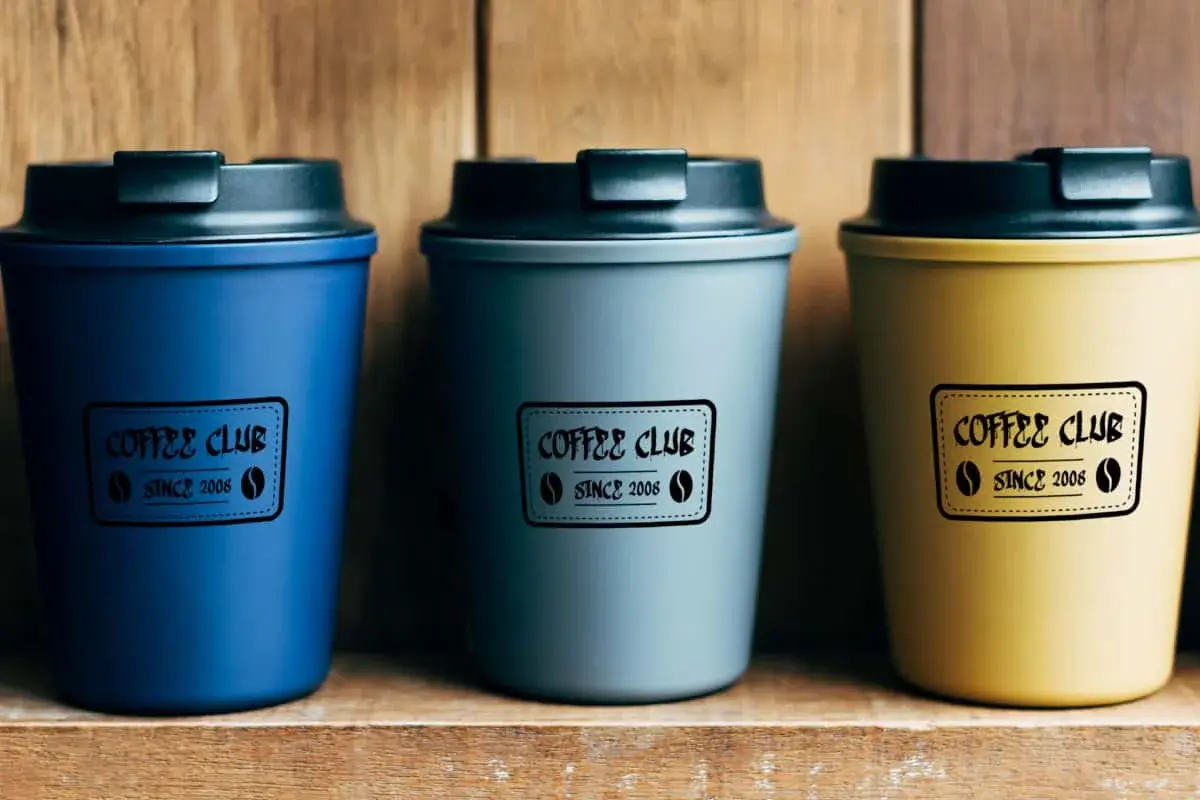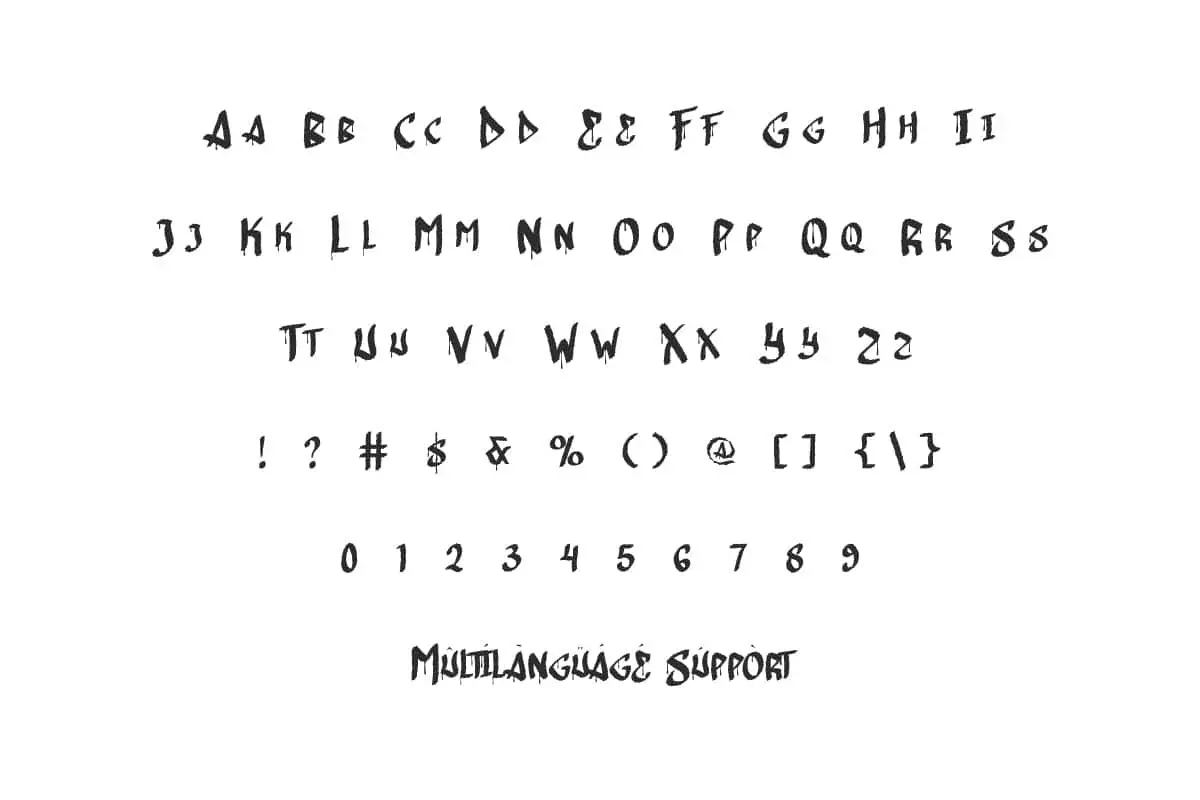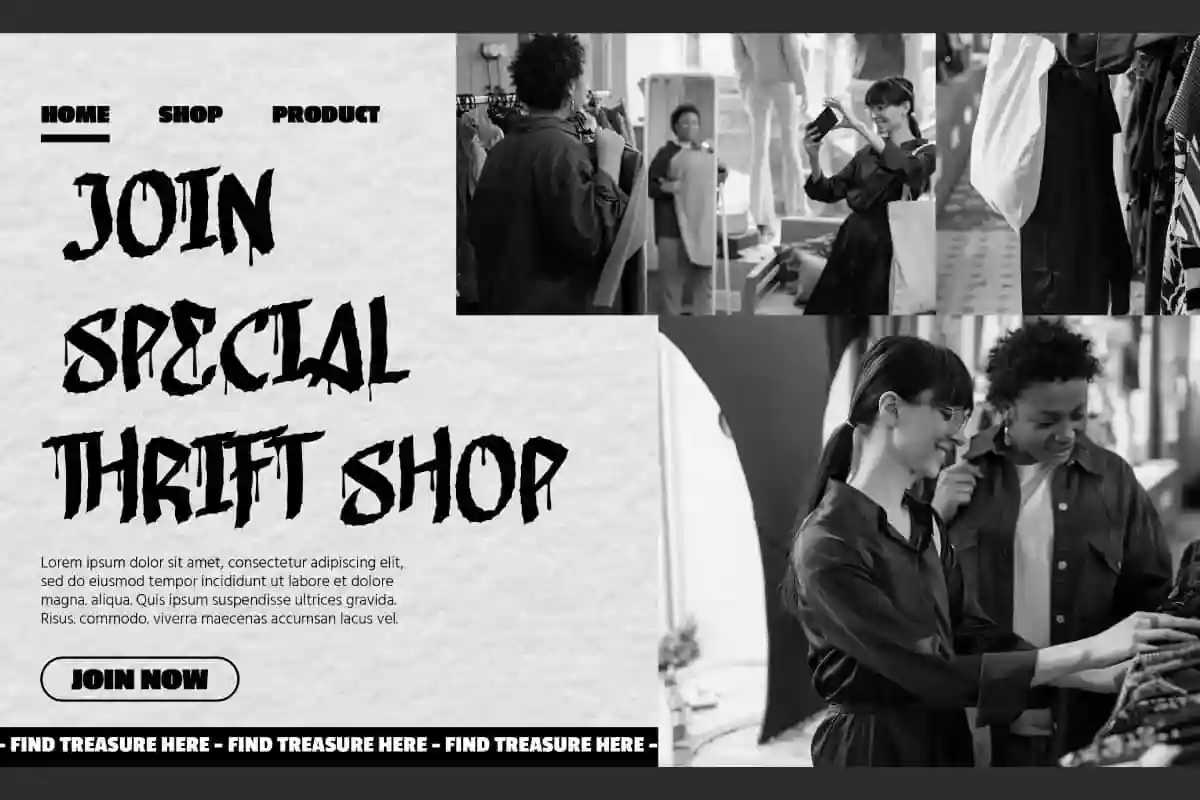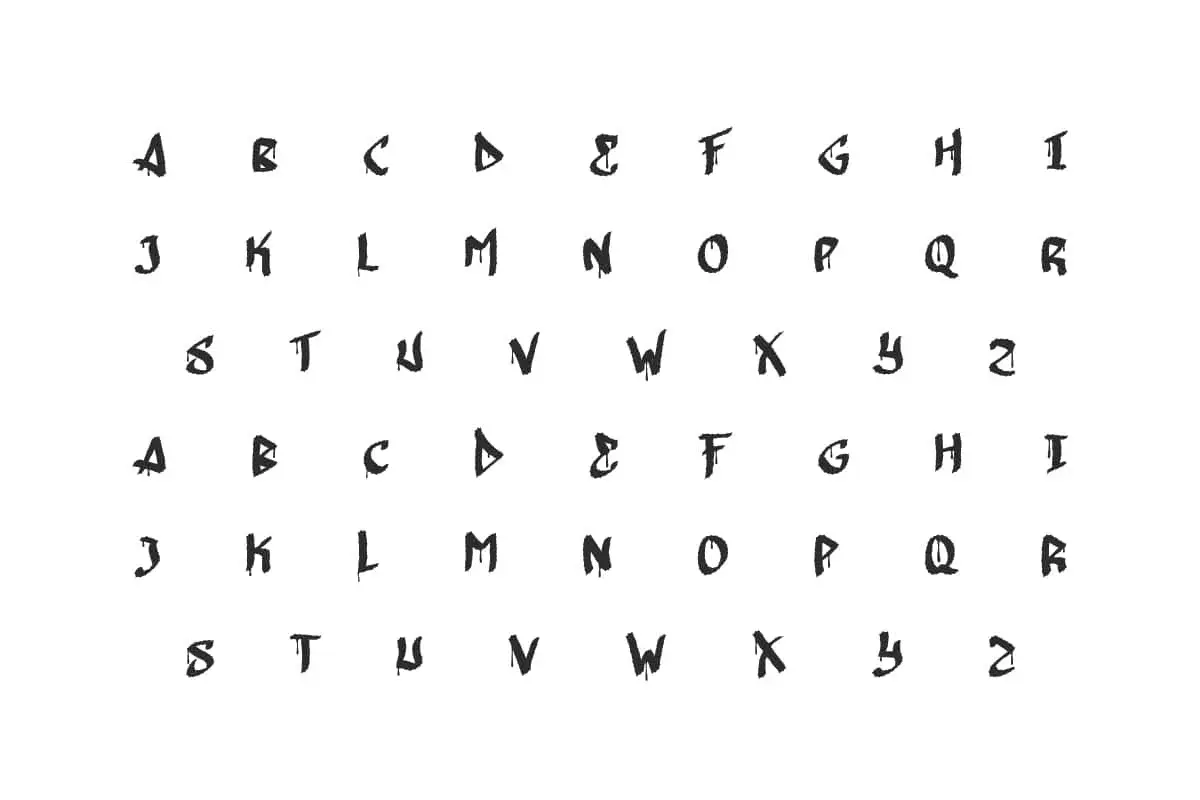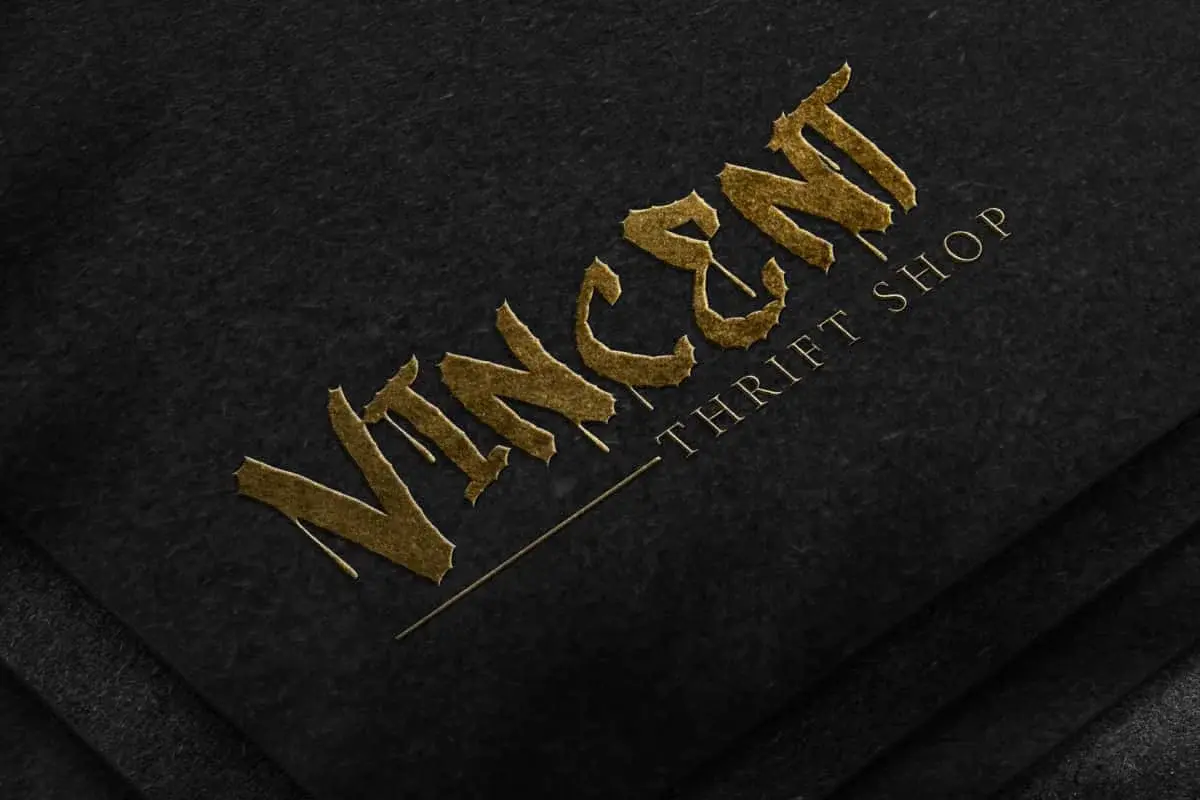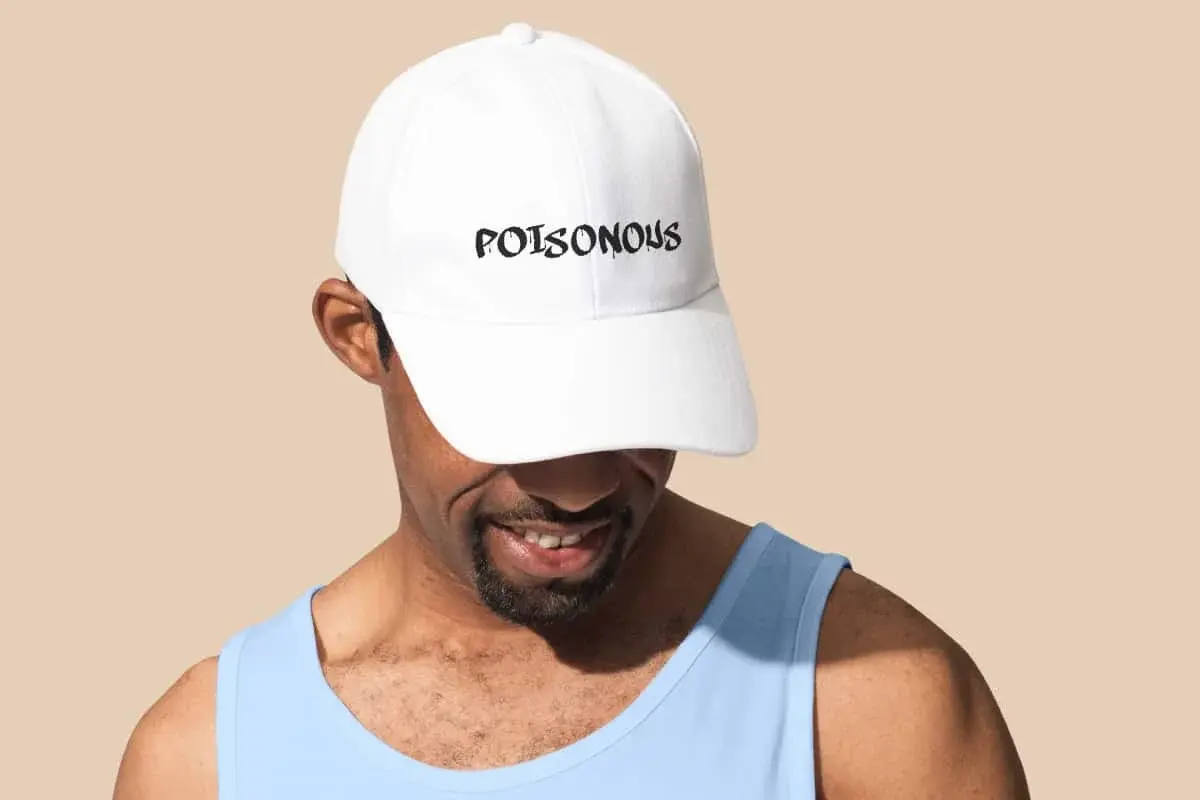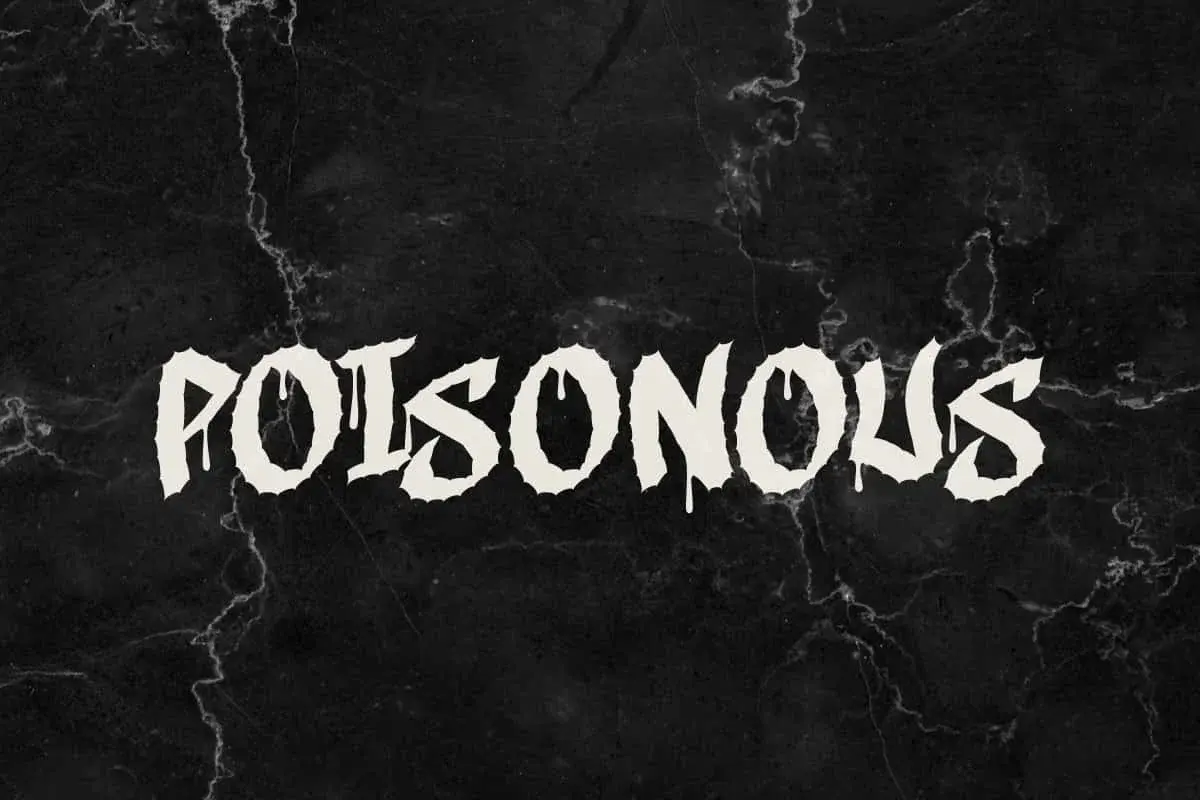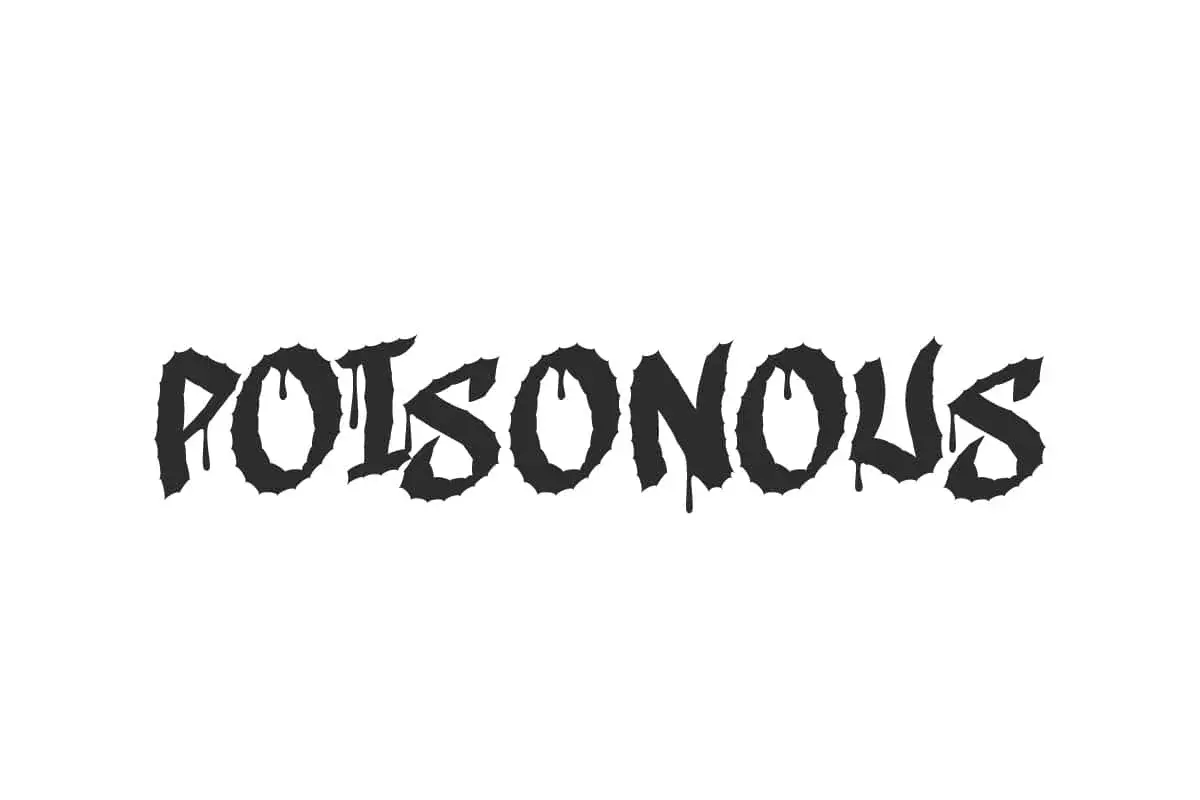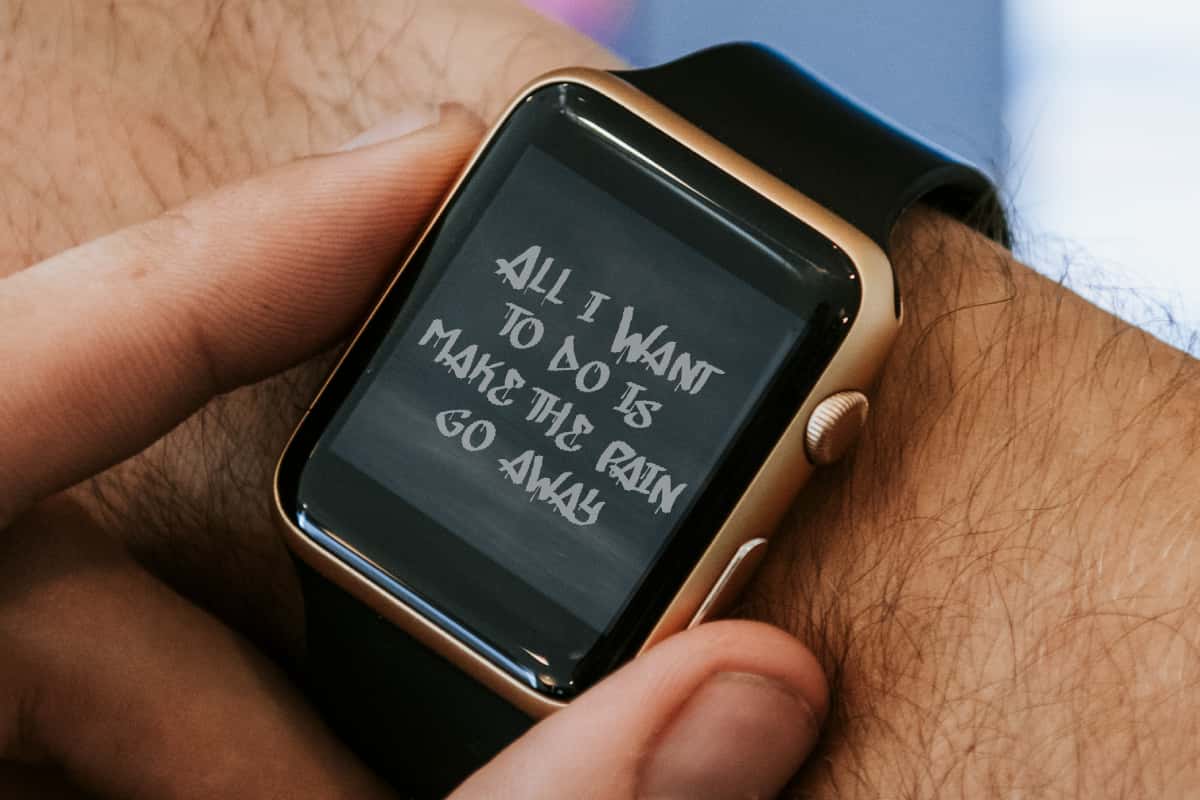
Poisonous Font is a creepy and creative display typeface of poison drop explosion, it will increase the ferocity of your designs making it versatile for anything!
Poisonous Font is a spooky display font with an intimidating aura of fierce design. Has a character with a unique appearance, very detailed and stylish. This font was created to complement your special editing needs, such as banners, blogs, brand logo, brochure, business card, headline, headers, label, packaging, poster, printed materials, quotes, stickers, title, template, website, and others.
Poisonous Font contains a complete set of ALL CAPS basic characters for both Uppercase and Lowercase, Numbers, Punctuation, Symbol and Alternate. Suitable for any work you create. With the addition of alternate letterforms where each character is carefully crafted. Perfect for apparel, fashion, graphic design, Halloween event, movie, music festival, photography, printing, publishing, themed cafes, and others.